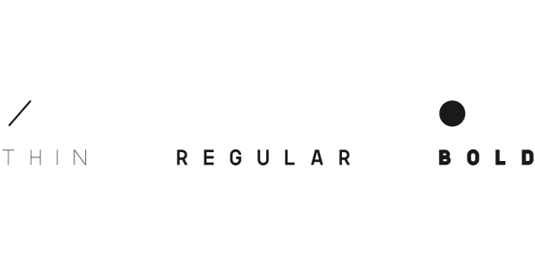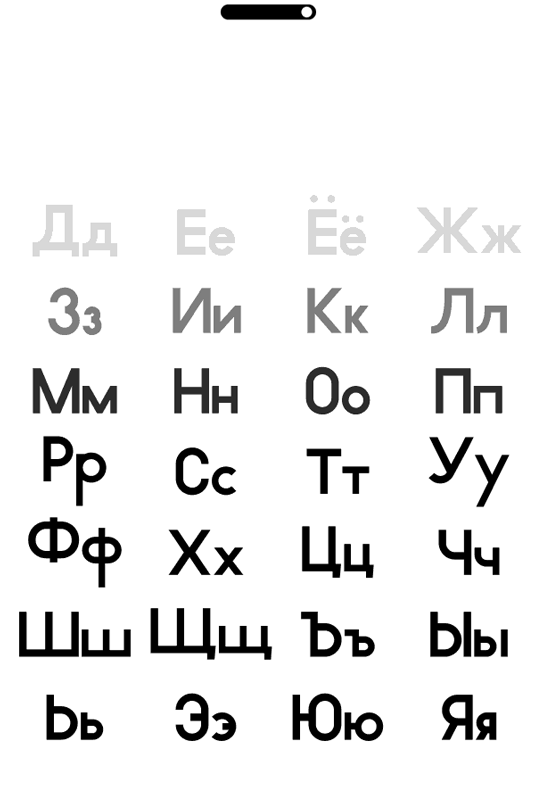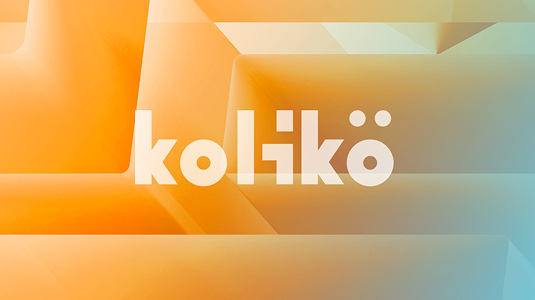
Font of the day: Kolikö
Kolikö by Alex Frukta and Vladimir Tomin
Today's typeface of choice is Kolikö, created by designers Alex Frukta and Vladimir Tomin. A geometric, sans serif with plain curves and a clean, functional structure, Kolikö – available in regular, thin and bold styles – is suitable for headlines of all sizes.